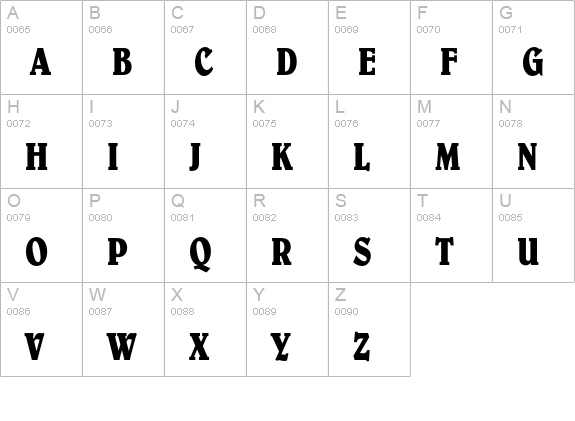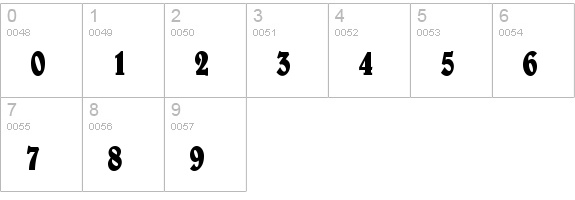
BelweEF-BoldCondensed Font Details
BelweEF-BoldCondensed is a striking and versatile font that exudes confidence and modernity. Its bold condensed style makes it perfect for headlines, titles, and other design elements that require a strong and impactful presence. The clean lines and sharp edges of this font give it a contemporary and stylish look that is sure to capture attention. This font is not only visually appealing but also highly functional, ensuring readability even at smaller sizes. Whether used for print or digital designs, BelweEF-BoldCondensed adds a touch of sophistication and professionalism to any project. Best of all, BelweEF-BoldCondensed is available for free download at FontsMarket.com, making it easily accessible to designers and creatives looking to enhance their work with a high-quality typeface. Download this font today and elevate your designs with the bold and modern aesthetic of BelweEF-BoldCondensed.